An aesthetic fonts generator converts normal text into Unicode-based aesthetic letters, fancy text, and decorative text styles. It transforms standard input into copy-paste fonts used in bios, captions, usernames, and social media posts across platforms like Instagram, TikTok, Twitter, and Tumblr.
The system works through Unicode character substitution. It maps standard alphabet characters into stylized glyph sets such as vaporwave spacing, wide text expansion, small text compression, subscript, superscript, Japanese-style characters, and gothic variants. The result is instant aesthetic text generation without downloads or font installation.
Generate Aesthetic Fonts Instantly
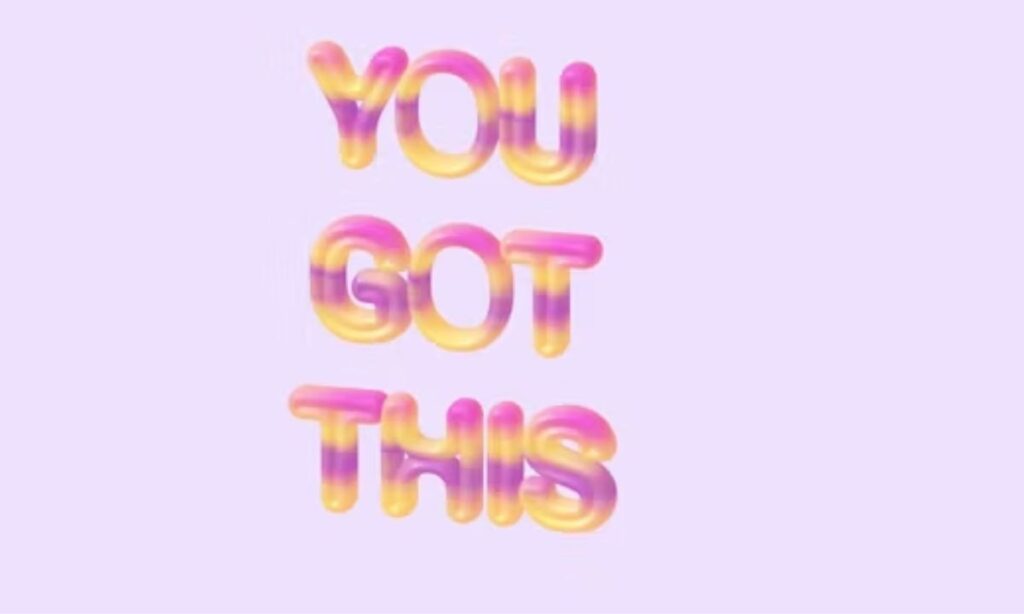
An aesthetic fonts generator produces instant text transformation through real-time Unicode conversion. It takes user input and returns multiple aesthetic font outputs within milliseconds.
The tool removes friction between idea and visual output. You type text, and the system converts it into stylized formats ready for copy and paste use across digital platforms.
Enter Your Text
The text input field accepts normal text and processes it for transformation into aesthetic styles.
The input process functions as follows:
- Accepts plain text entry in a text box or input field
- Reads user-typed words or phrases instantly
- Stores input as raw character data
- Prepares text for Unicode mapping conversion
- Sends content to the font transformation engine
This stage ensures that every character becomes convertible into multiple aesthetic variants without formatting loss.
Browse Multiple Aesthetic Font Styles
The font style browser displays a structured list of aesthetic font categories generated from Unicode mappings.
The system organizes font output into selectable visual formats:
- Displays vaporwave fonts with spaced and stretched characters
- Shows wide text fonts with expanded character width
- Renders Japanese-style fonts with symbolic variation
- Presents small text styles with compressed glyph scaling
- Generates subscript and superscript text variations
- Enables live preview before copying
Each style reflects a different visual identity layer. The user compares styles based on tone, not just appearance.
Best Aesthetic Font Styles by Use Case
Cute Aesthetic Fonts for Bios and Captions
Cute aesthetic fonts support soft identity expression in social media environments. These fonts use rounded Unicode shapes and light visual density.
Use cases include:
- Instagram bios with soft aesthetic identity
- TikTok captions with playful stylized text
- Twitter profiles with minimal decorative typography
- Tumblr posts with expressive character styling
- Discord bios with casual aesthetic identity
Cute fonts function as identity signals. They communicate tone before reading begins.
Elegant Fonts for Personal Branding
Elegant fonts support structured brand identity and professional visual communication. These fonts emphasize clarity, spacing balance, and consistent typographic rhythm.
They apply in:
- Logo text built with Unicode-style elegance
- Landing page headings with refined typography
- Marketing banners requiring visual hierarchy
- Business profiles needing consistent tone
- Creator branding across multiple platforms
Elegant fonts create recognition consistency. They align visual identity with brand message across digital channels.
Which Aesthetic Font Matches Your Goal?
Aesthetic font selection depends on user intent, platform context, and communication goal. Each font category performs a different functional role in visual communication.
The matching system works through goal-based selection logic:
- Select cute fonts for expressive social identity and engagement
- Select elegant fonts for branding and professional presence
- Select vaporwave or wide text fonts for attention-driven content
- Select minimal fonts for readability-focused communication
Font choice influences perception speed. Users interpret tone before reading content.
Platform Compatibility Guide
Platform compatibility determines whether Unicode aesthetic fonts render correctly across devices and apps. Most modern platforms support Unicode rendering, but restrictions apply in username fields.
Platform behavior overview:
- Instagram supports aesthetic fonts in bios, captions, and comments
- TikTok supports decorative text in bios and display names
- Twitter/X supports Unicode fonts in posts and profile text
- Facebook supports aesthetic fonts in profiles and pages
- Discord supports Unicode text in usernames and chat messages
- Tumblr and Amino support full aesthetic text rendering
Some platforms restrict Unicode characters in usernames. Rendering also varies across older Android and iOS versions.
An aesthetic fonts generator gives you instant access to hundreds of Unicode-based text styles โ from cute and soft to elegant and gothic. Whether you are styling an Instagram bio, a TikTok caption, or a brand profile, the right aesthetic font turns plain text into a powerful identity signal with just one click.